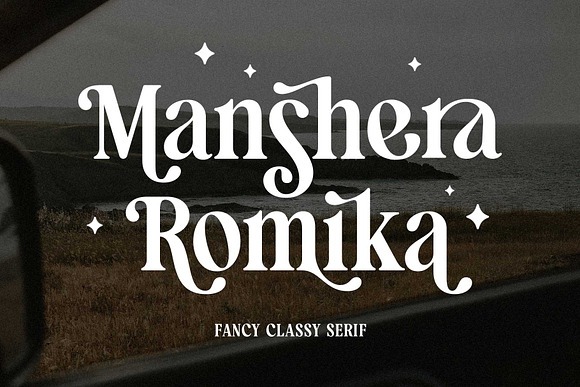
Manshera Romika – Modern Vintage Font
About Manshera Romika – Modern Vintage
Introducing Manshera Romika, a modern classy bold serif font. Beautiful masterpiece with lots of special characters that brings you to a modern-vintage design with a sexy thick shape. This font represents a sophisticated touch, perfect for a minimalist theme, elegance, and cheerfulness. 500+ Glyphs worth for your design project!